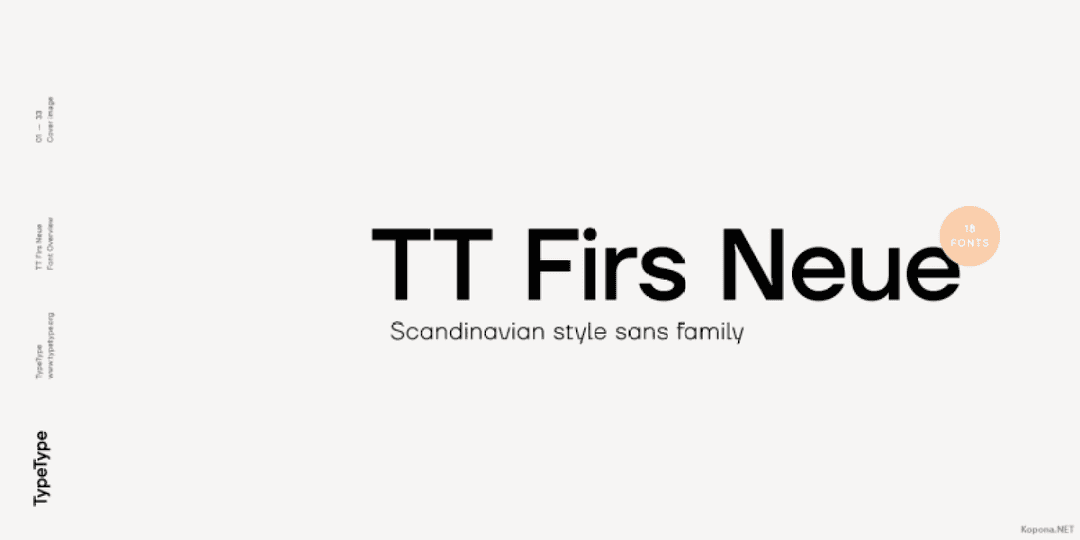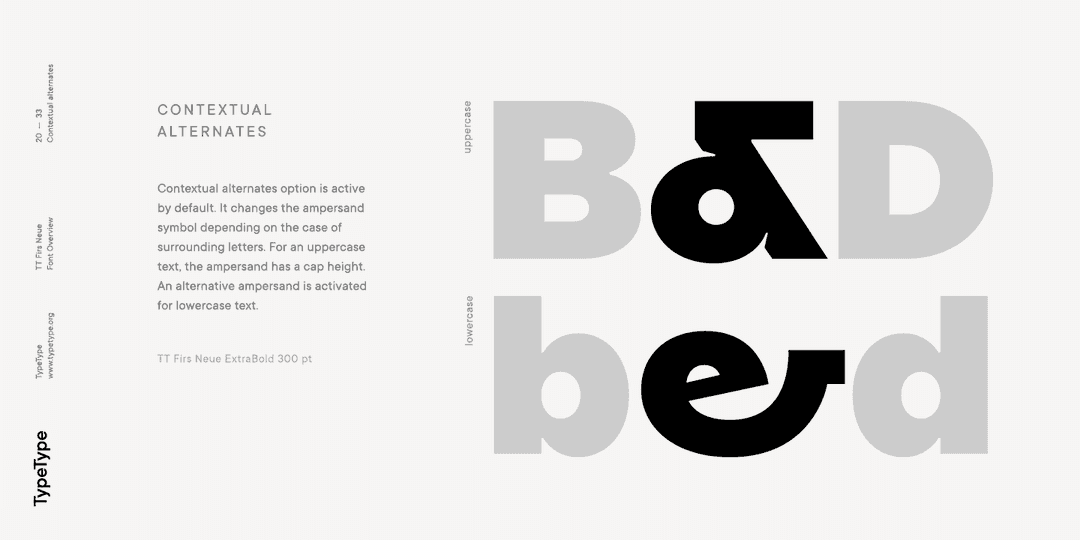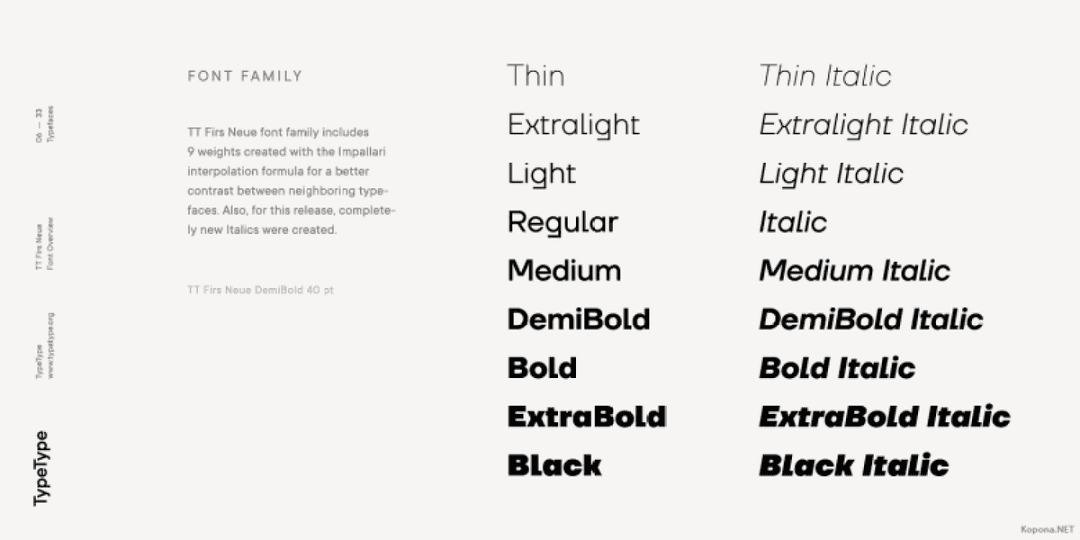
Welcome back! TT Firs Neue is back! We have reconsidered the font to bring in the newer typeface in the series. As for each contour and graphic element of the font, we reconstructed it while keeping the best moments and making some improvements if needed. Thus, we have developed a perfect and contemporary sans serif that would not be possible without the new technical potential of the studio.